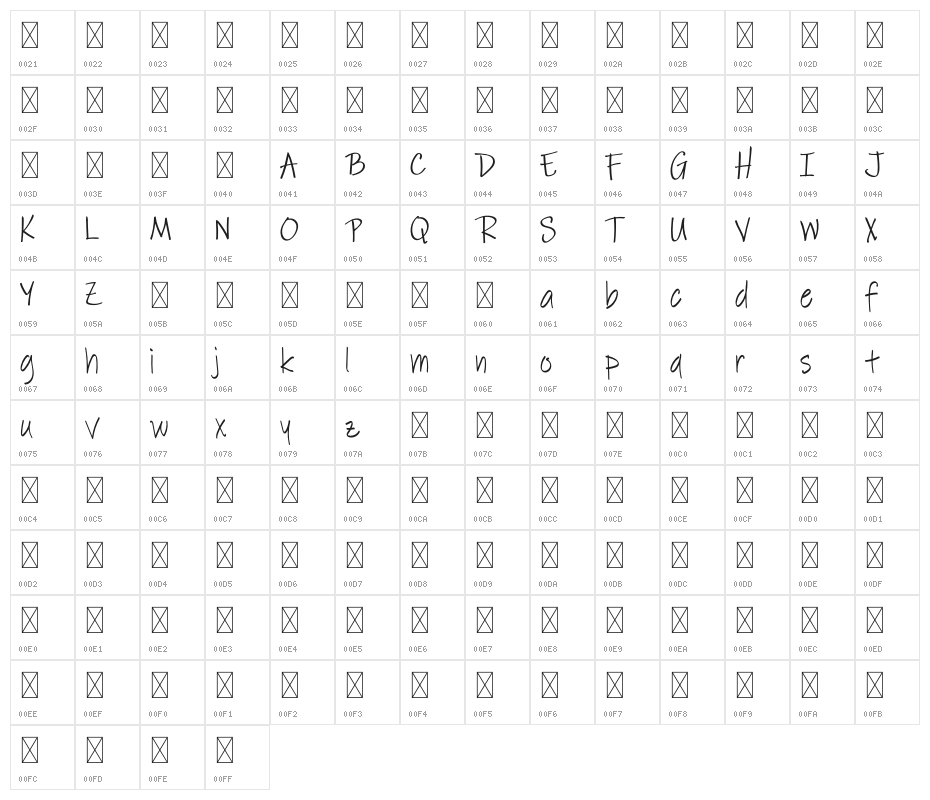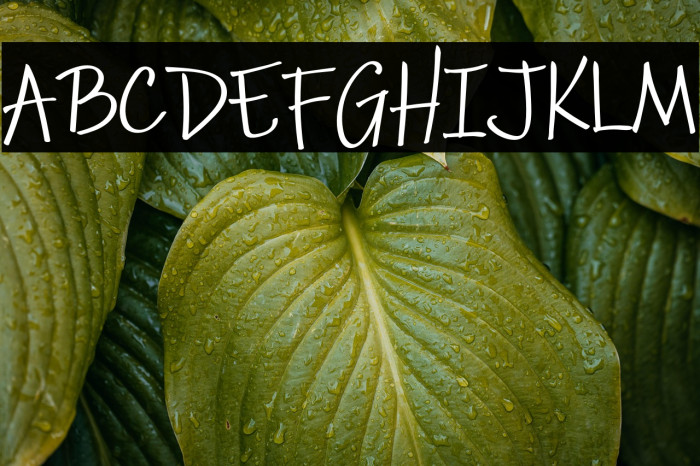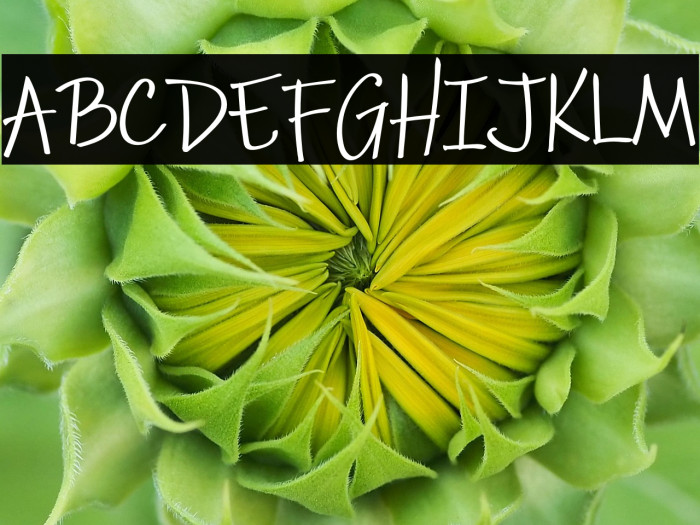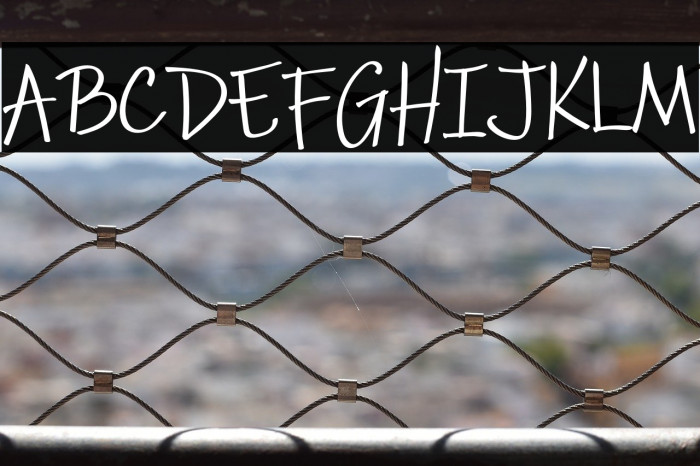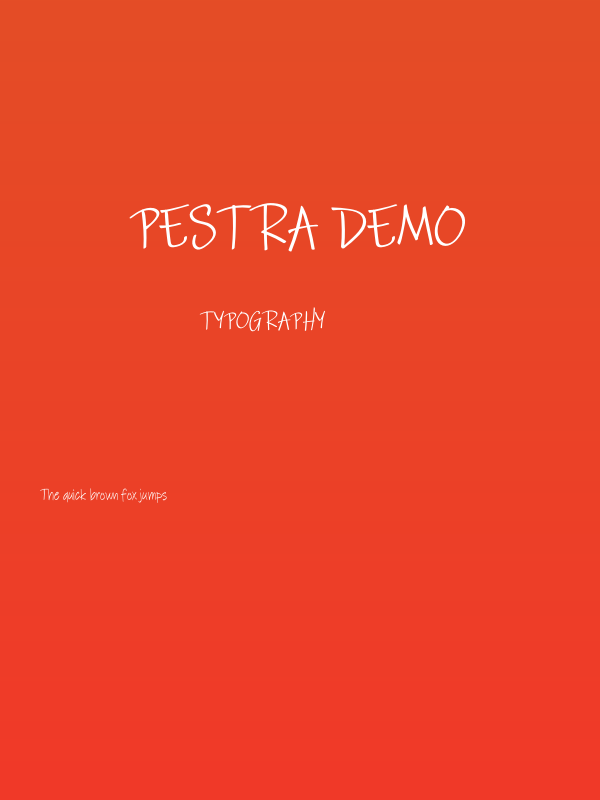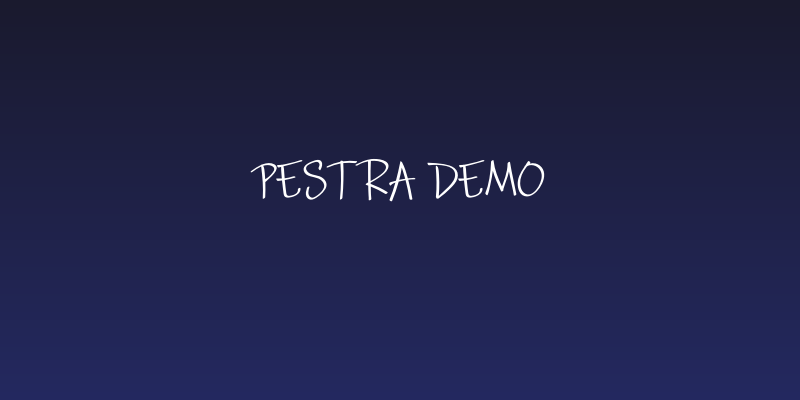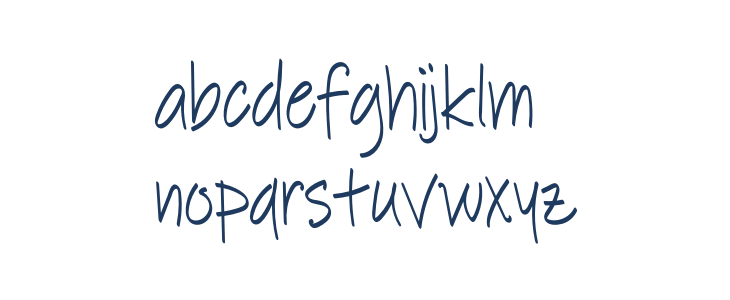
Pestra Demo Font
Pestra Demo Description
This font features a playful and casual handwritten style, characterized by its irregular strokes and slightly tilted letters. The uppercase letters are bold and expressive, while the lowercase letters maintain a consistent flow, adding to the overall informal aesthetic. The font includes a full set of uppercase and lowercase letters, numerals, and a selection of special characters, making it versatile for various design needs. Its unique charm lies in the organic feel of the strokes, which mimic the natural imperfections of handwriting, giving it a personal touch.
| Proposed Projects | Ideal for greeting cards, invitations, personal branding, and creative projects that require a personal touch. |